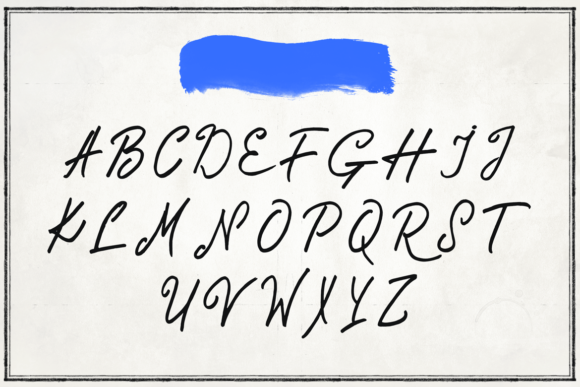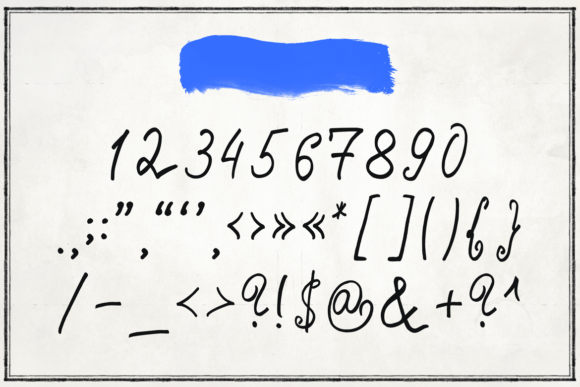
Embrace Font
About Embrace Font
Embrace is a handwritten script font, with an elegant and beautiful look. It looks stunning on invitations, thank you cards, quotes, greeting cards, logos, business cards and every other design which needs a handwritten touch.